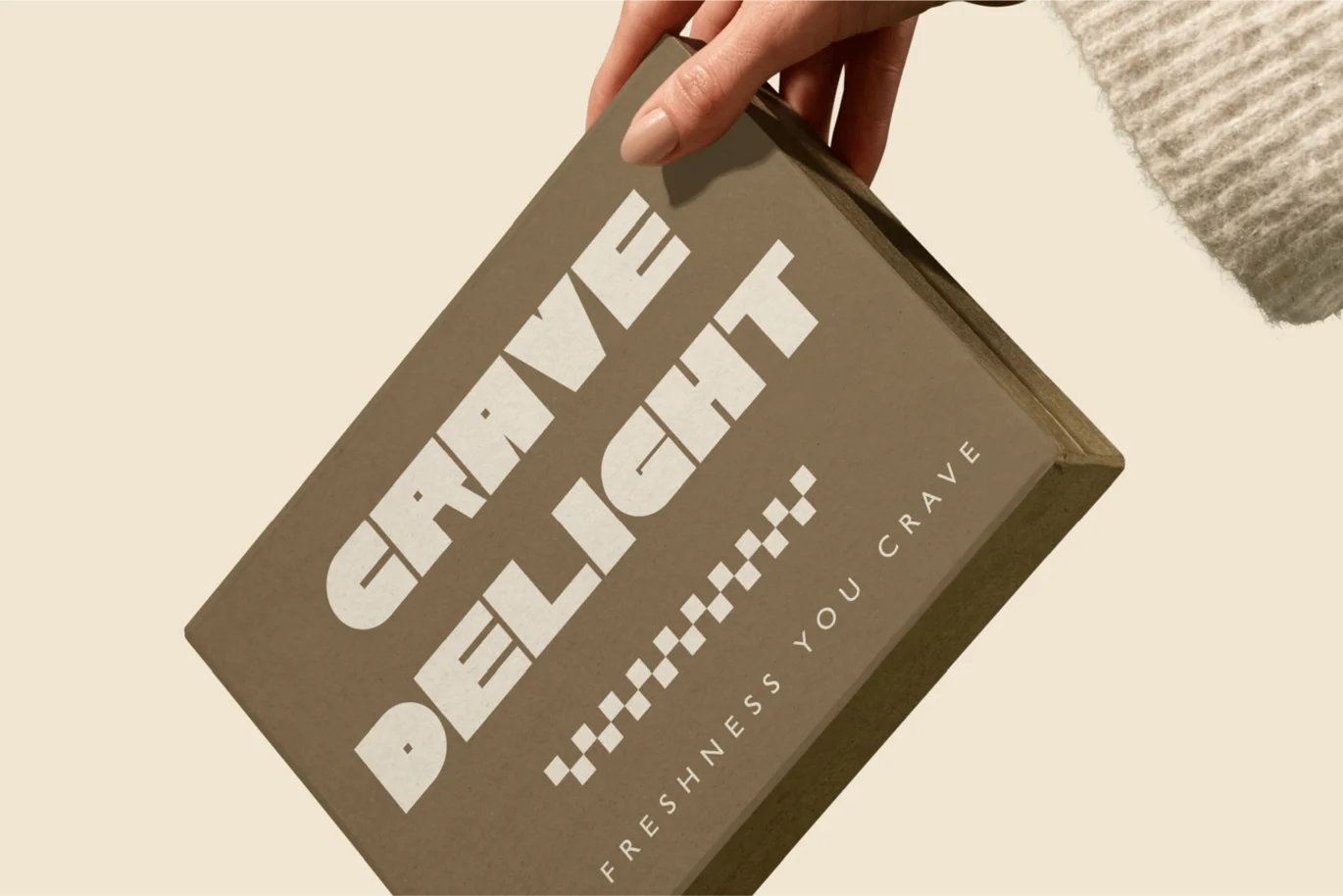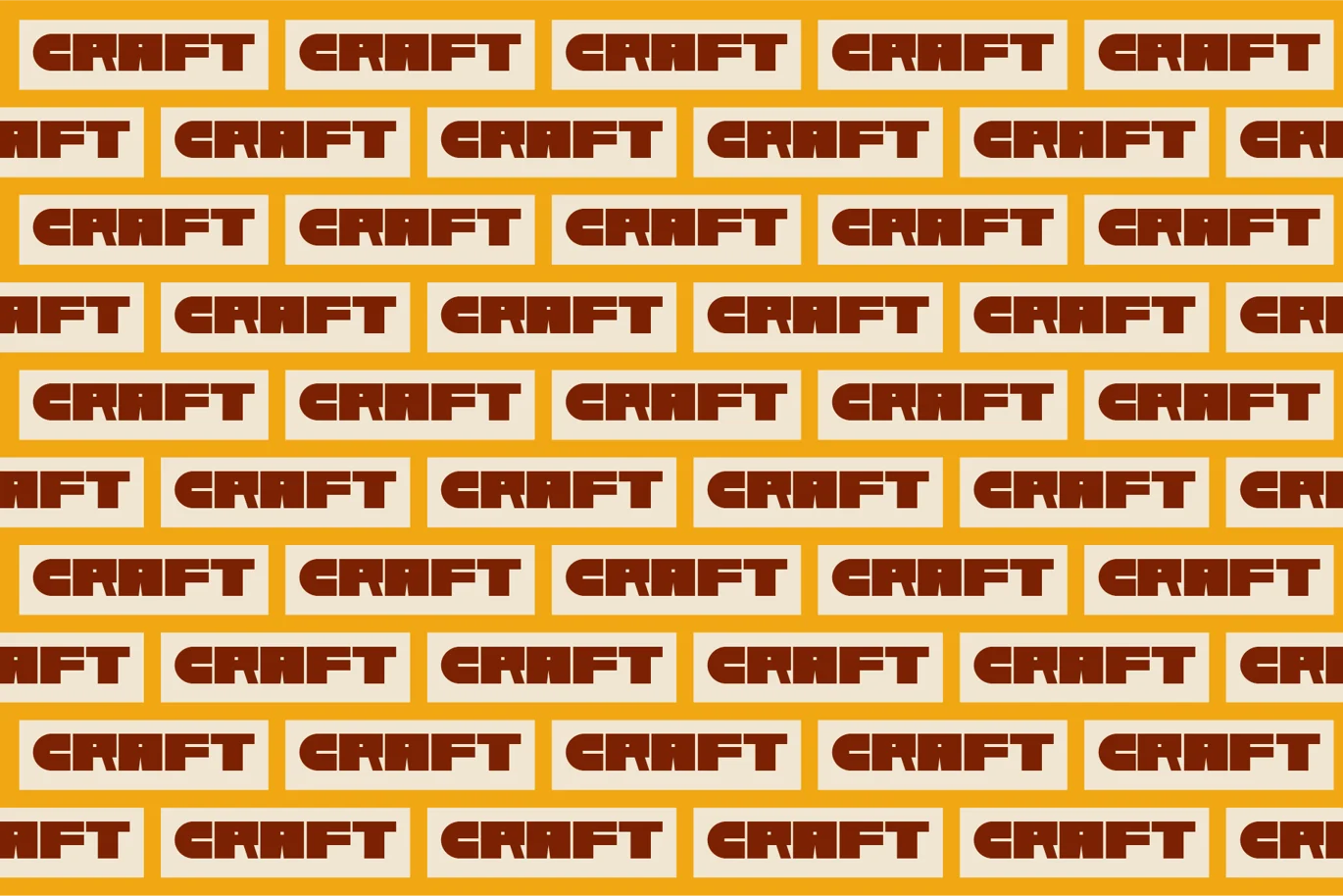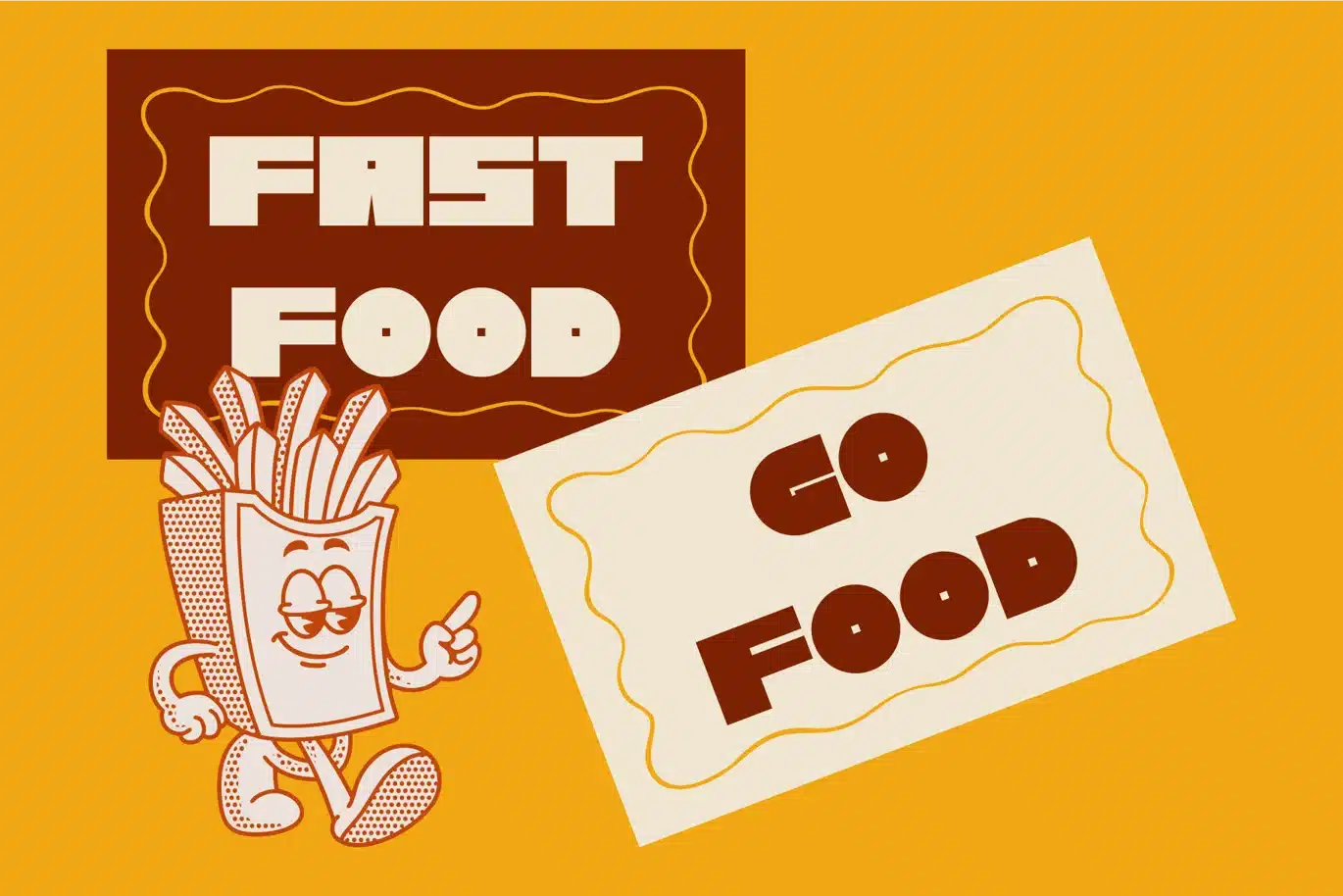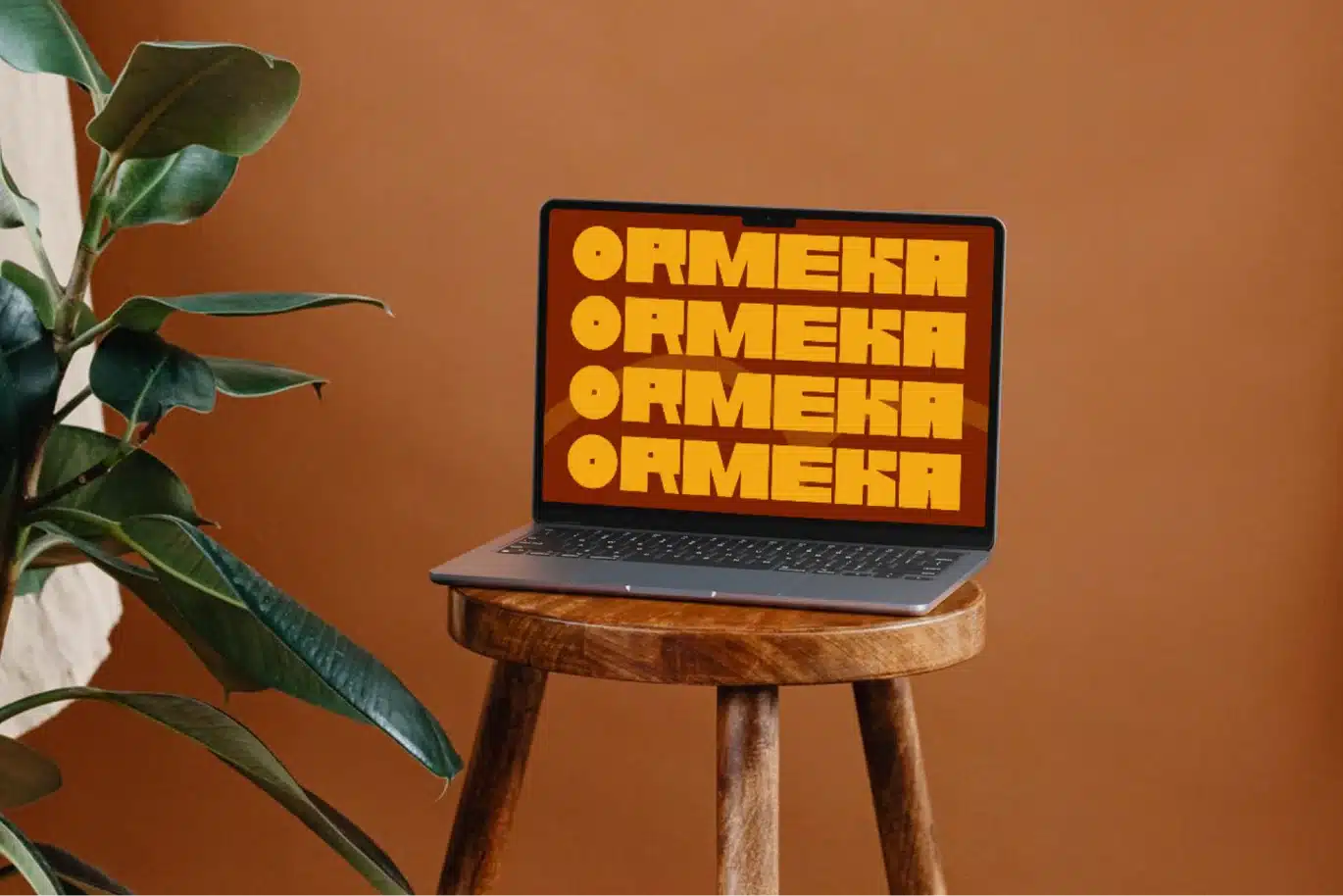
Ormeka – Bold Display Font
Ormeka is a bold, expressive typeface crafted to stand out. With its distinctive shapes and confident weight, it delivers a powerful visual identity for brands that aim to be bold and memorable.